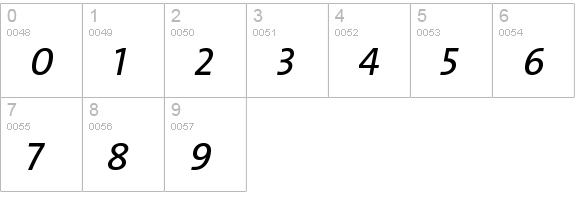
TheMix- Caps Italic Font Details
TheMix- Caps Italic is a distinctive, italic variant in the TheMix typeface family \xE2\x80\x94 well suited to design and typography projects.
TheMix- Caps Italic font is a stunning typeface that exudes elegance and sophistication. Its bold and italicized letterforms command attention and add a touch of drama to any design. With its unique balance of sharp edges and fluid curves, TheMix- Caps Italic font strikes the perfect balance between modernity and classic charm. This font is not only visually captivating but also incredibly versatile. Whether used for headlines, logos, branding materials, or editorial designs, TheMix- Caps Italic font effortlessly elevates any project. Its distinctive letterforms create a strong visual impact, making it ideal for conveying bold and confident messaging. One of the best aspects of TheMix- Caps Italic font is that it is freely available to download at FontsMarket.com. This means that designers and creatives alike can easily access this exceptional typeface without any cost. This accessibility allows for endless creative possibilities, as individuals can explore and experiment with TheMix- Caps Italic font in a variety of projects. TheMix- Caps Italic font's versatility extends beyond its visual appeal. It is also highly legible, ensuring that messages are communicated clearly and effectively. The font's clean and well-defined letterforms guarantee readability across different mediums and sizes, making it suitable for both print and digital applications. Whether you're designing a sleek and modern website, an eye-catching poster, or a captivating book cover, TheMix- Caps Italic font is the perfect choice to make a lasting impression. Its bold and dynamic nature, combined with its legibility and accessibility, make it a must-have for any designer's toolkit. So, why wait? Discover the power of TheMix- Caps Italic font today by downloading it for free at FontsMarket.com. Unleash your creativity and elevate your designs with this exceptional typeface that effortlessly combines style and functionality.